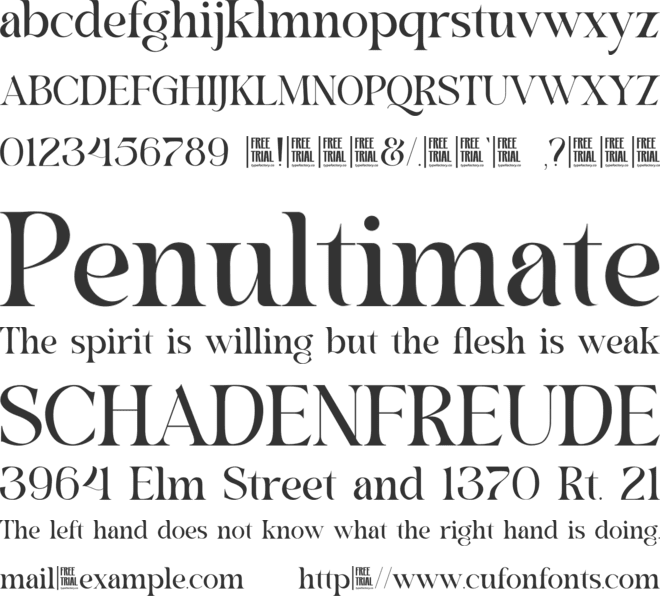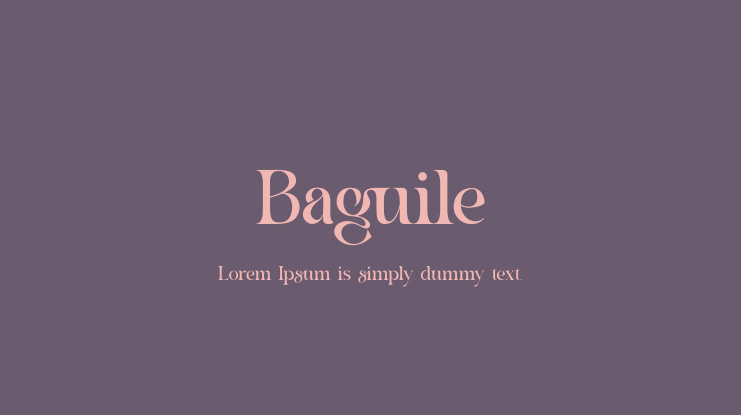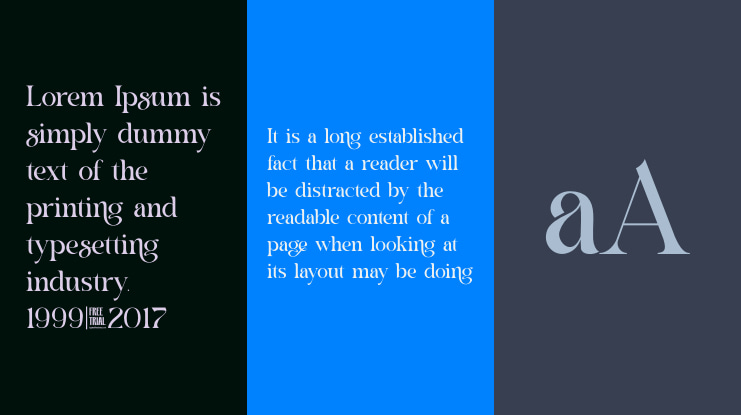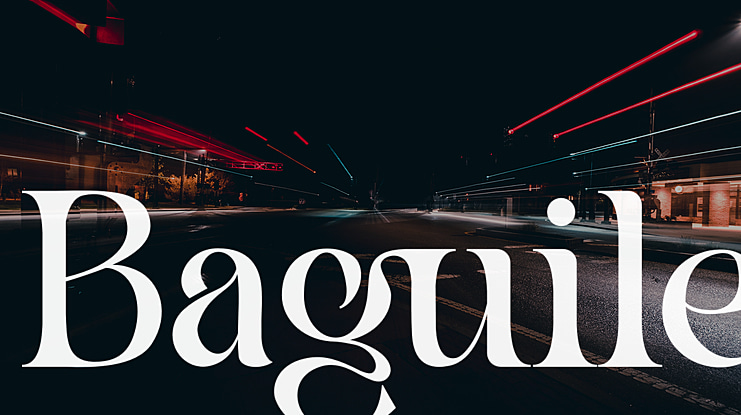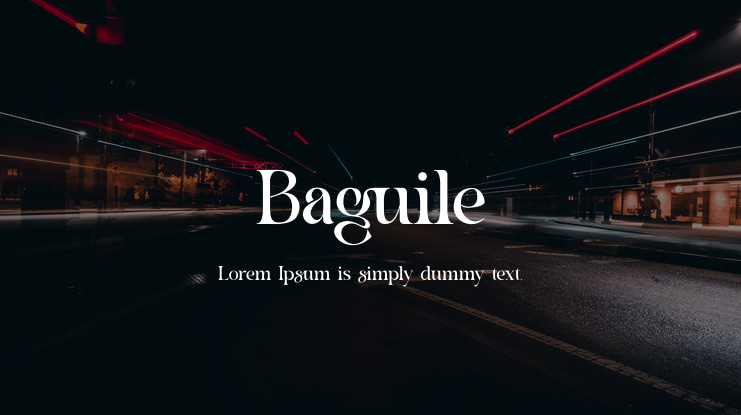
Baguile Font
Baguile is a simple serif font.
Elegantly crafted and easily be matched to an incredible large set of projects.
Use this font to achieve an exquisite, yet subtle look and maximum versatility.